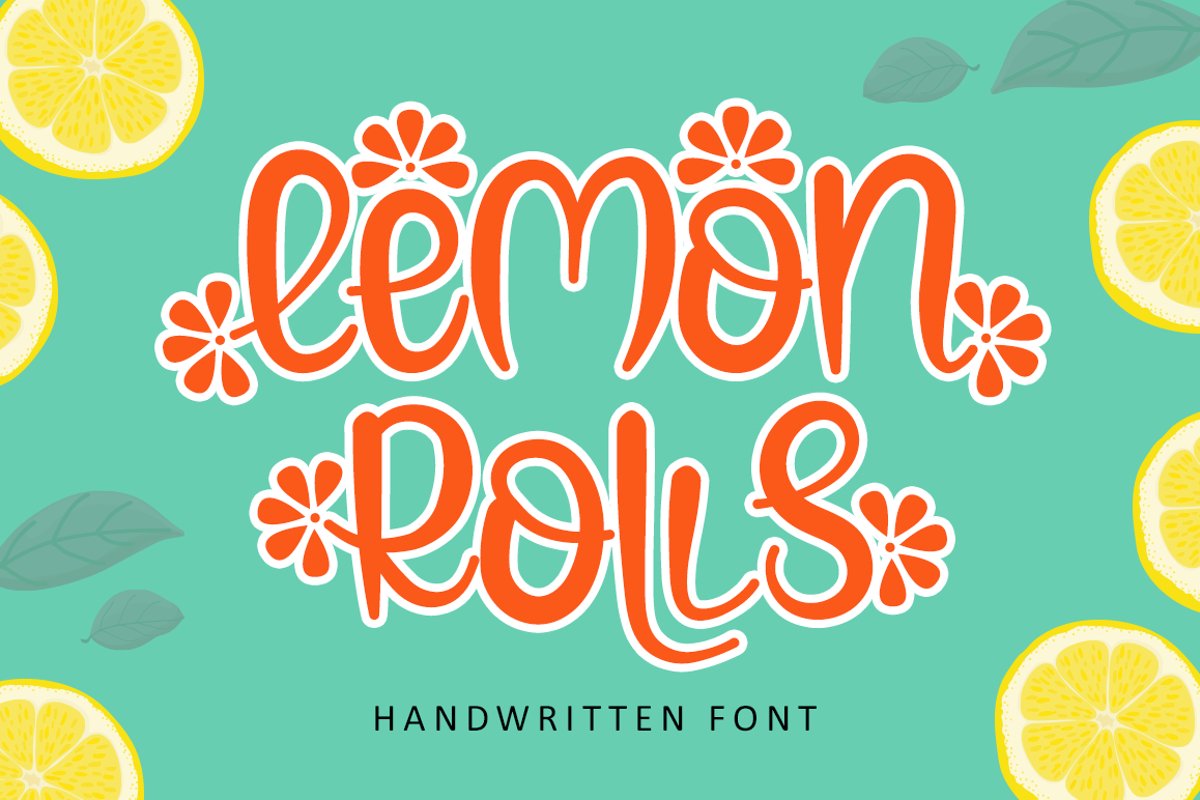
Happy to share our new font "
Lemon Rolls" it's fresh, cute and friendly handwritten font. The alternate on uppercase and lowercase is inspired by lemon side make it clean and a little bit quirky, this font is the perfect fit for all of your logos, branding, social media, and crafty DIY projects.